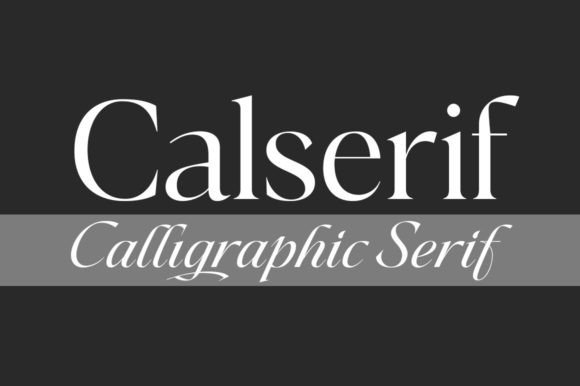
Calserif Font: A Timeless Blend of Classic and Contemporary Design
The Calserif font is a unique and elegant serif font family that combines the classic elements of traditional serif fonts with the fluid, cursive lines of calligraphy. This distinctive blend of styles results in a font family that is both nostalgic and modern, making it perfect for a wide range of design applications. In this article, we’ll take a closer look at the Calserif font, its features, and how it can be used to elevate your designs.
What is Calserif Font?
Calserif is a serif font combined with a calligraphy serif font, offering a refreshing twist on traditional serif fonts. The font family consists of two versions: regular serif styles and italic calligraphy styles. This allows designers to choose the perfect style to suit their design needs, whether it’s for creating headlines, magazines, logo designs, packaging, editorials, or invitations.
Key Features of Calserif Font
- Classic and Contemporary Blend: Calserif font seamlessly blends traditional serif elements with modern calligraphy, creating a unique and elegant look.
- Two Font Styles: The font family includes two distinct styles: regular serif and italic calligraphy, providing designers with flexibility and versatility.
- Nostalgic yet Clean and Elegant: Calserif font is perfect for creating designs that are both nostalgic and modern, making it ideal for a wide range of applications.
- Highly Versatile: The font can be used for various design projects, including headlines, magazines, logo designs, packaging, editorials, and invitations.
Design Applications of Calserif Font
The Calserif font is incredibly versatile and can be used in a variety of design applications. Here are some examples:
1. Headlines and Titles
Calserif font is perfect for creating eye-catching headlines and titles. Its classic and contemporary blend makes it ideal for grabbing the reader’s attention and adding a touch of elegance to your designs.
2. Magazines and Editorials
The font’s clean and elegant design makes it suitable for use in magazines and editorials. It can add a touch of sophistication and refinement to your publication, making it stand out from the crowd.
3. Logo Designs
Calserif font can be used to create unique and memorable logos. Its distinctive blend of classic and contemporary styles makes it perfect for businesses looking to establish a strong brand identity.
4. Packaging Design
The font’s elegant design makes it ideal for use in packaging design. It can add a touch of luxury and sophistication to your product packaging, making it stand out on store shelves.
5. Invitations and Event Designs
Calserif font is perfect for creating elegant and sophisticated invitations and event designs. Its classic and contemporary blend makes it suitable for formal and informal events alike.
Benefits of Using Calserif Font
There are several benefits to using Calserif font in your designs. Here are some of the advantages:
1. Unique and Distinctive
Calserif font offers a unique and distinctive look that sets it apart from other serif fonts. Its blend of classic and contemporary styles makes it perfect for designers looking to create something new and exciting.
2. Highly Versatile
The font’s versatility makes it suitable for a wide range of design applications. Whether you’re creating headlines, magazines, logos, or packaging, Calserif font is a great choice.
3. Elegant and Sophisticated
Calserif font adds a touch of elegance and sophistication to your designs. Its clean and refined lines make it perfect for creating designs that are both nostalgic and modern.
4. Easy to Read
The font’s clear and legible design makes it easy to read, even at small sizes. This makes it perfect for use in body text, as well as headlines and titles.
In conclusion, Calserif font is a unique and elegant serif font family that combines the classic elements of traditional serif fonts with the fluid, cursive lines of calligraphy. Its blend of classic and contemporary styles makes it perfect for a wide range of design applications, from headlines and magazines to logo designs and packaging. With its highly versatile design, elegant and sophisticated look, and ease of readability, Calserif font is a great choice for designers looking to create something new and exciting.